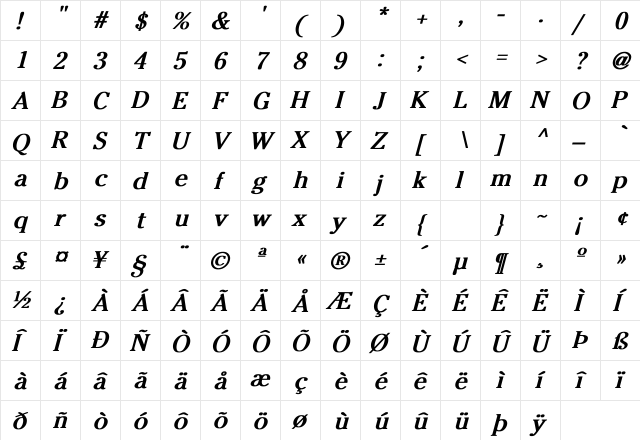
Cheltenham-Normal Bold Italic Font Preview
Cheltenham-Normal Bold Italic
Design Context for Cheltenham-Normal Typeface
Cheltenham-Normal offers clean, dependable letterforms without strong stylistic allegiance, making it a practical choice for designers who need flexibility. Its italic angle brings a sense of urgency and motion to the letterforms. The heavy weight commands attention and anchors typographic hierarchies.